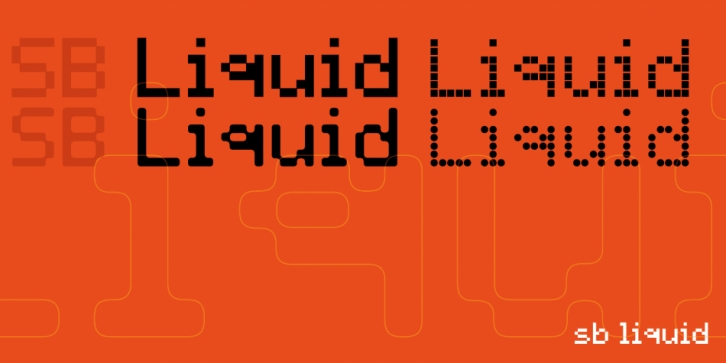
SB Liquid is a pixel font family. This typeface has four styles and was published by SelfBuild Type Foundry.
SB Liquid is a rendition of a typeface used on Liquid Crystal Display panels and was originally designed for a mobile phone hire company. I opted to produce two versions of the typeface, open and solid, to give the designer more choice in how the font is used.